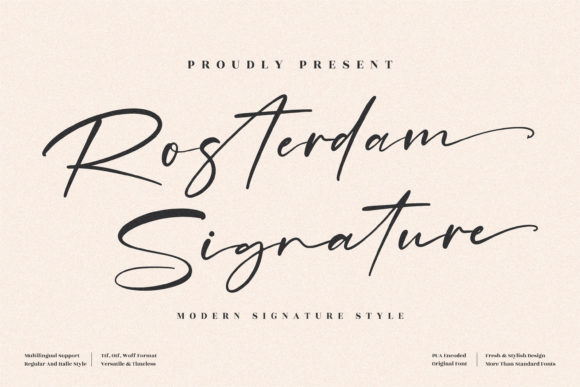
Embrace the allure of Rosterdam Signature, a captivating script font that dances elegantly along the baseline. This romantic and sweet calligraphy typeface is a symphony of grace and charm, adding a touch of luxury to your creative endeavors. Unleash your imagination and let Rosterdam Signature guide you through a world of enchanting designs. It's a font that speaks to the heart, evoking emotions with every letter. With Rosterdam Signature, your words will come alive, igniting a spark of magic in your audience's hearts.
Immerse yourself in the boundless creativity of Rosterdam Signature. Its fluid strokes and graceful curves lend an air of elegance to any project, whether it's a wedding invitation, a logo design, or a social media post. With its PUA encoding, you'll have effortless access to a treasure trove of stunning glyphs and ligatures, empowering you to craft truly unique and captivating designs.
Imagine the possibilities as you wield Rosterdam Signature's enchanting allure. Envision your gaming website transformed into a captivating realm, where every word captivates and engages your audience. Let Rosterdam Signature be your magic wand, casting spells of visual delight that leave an unforgettable impression.